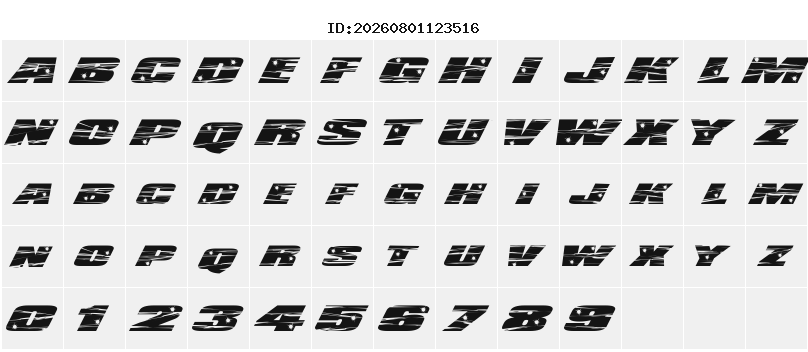
LHF Action Movie Preview
• Font Name: LHF Action Movie
• Font ID: LHF Action Movie
• Full Font Name: LHF Action Movie
• PostScript Name: LHFActionMovie
About LHF Action Movie.ttf
LHF Action Movie.ttf is a modern, elegant sans-serif font designed for ultimate readability and visual harmony. Perfect for branding, headlines, web design, and print materials.